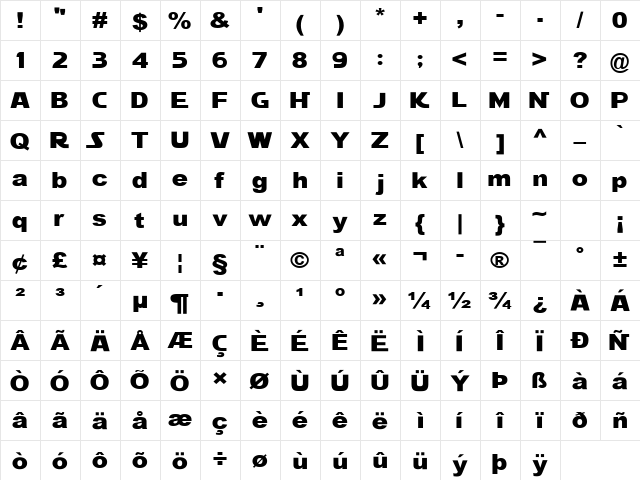
STARWARS Regular Font Preview
STARWARS Regular
STARWARS Regular Font Details
Design Context for STARWARS Typeface
STARWARS takes a measured approach to typography — its balanced proportions and neutral character make it a reliable workhorse for both digital and print work.